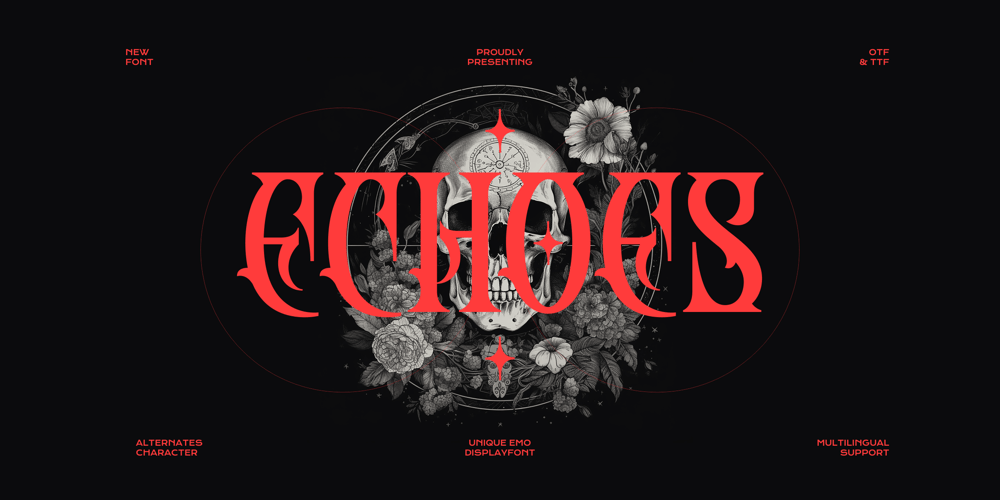
Echoes Font Family was designed by Aulia Savira Putri and published by Imoodev. Echoes contains 1 styles and family package options. Echoes blackletter style is a bold and menacing typeface inspired by the dark and intense aesthetic of the death metal music genre. With sharp, angular letterforms and jagged edges, this font exudes an aura of aggression and power. Each character is meticulously crafted to convey a sense of brutality and raw energy.